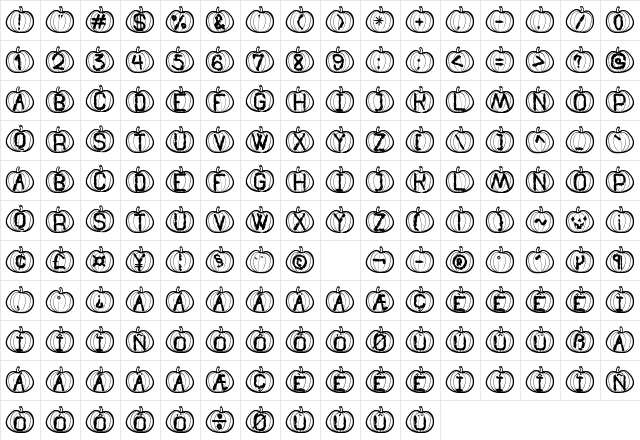
Pumpkin Halloween St Regular Free Font
Pumpkin Halloween St Regular
Foundry: www.southype.com
Designer: This font is an original work of southype dot com
Complete Pumpkin Halloween St Regular glyph index. Displaying only characters natively supported by Pumpkin Halloween St Regular font.
Design Context for Pumpkin Halloween St
Pumpkin Halloween St is a composed and adaptable typeface that performs quietly and consistently across a wide range of design contexts.